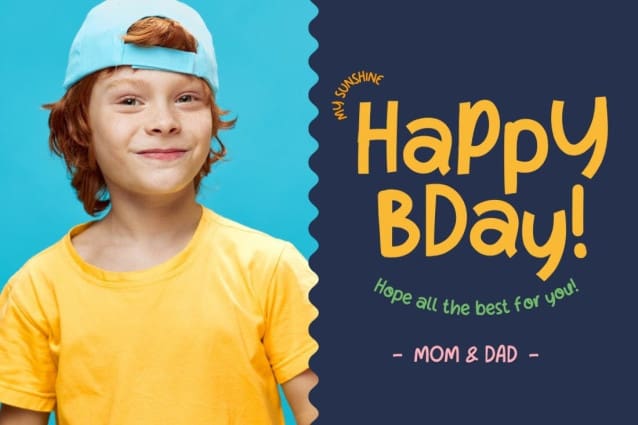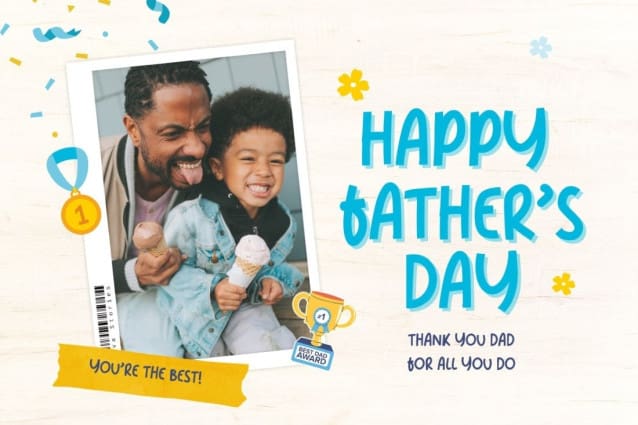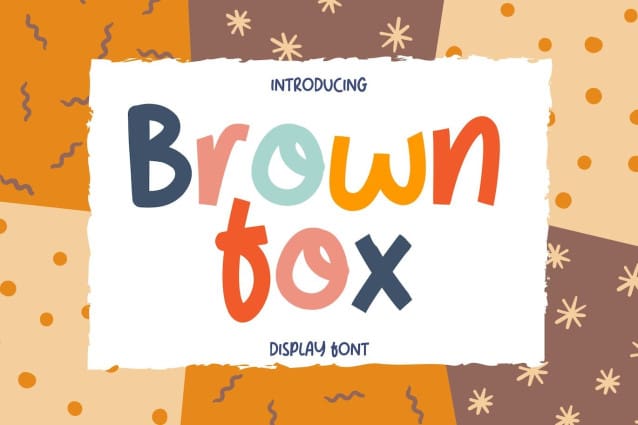
Brown Fox Font
Brown Fox Font, designed to infuse playful charm into every project. This handwritten font is your gateway to captivate the fun and youthful vibe of heart.
Designed to make your content fun and cute, “Brown Fox” is the ideal choice for book covers and captivating displays. Its soft, kid-friendly appeal is perfect for a variety of projects. Whether it’s web design, posters, or other creative endeavors, this font makes your work stand out and engage your audience. Improve your SEO ranking and bring your projects to life with the charming “BrownFox” font from today